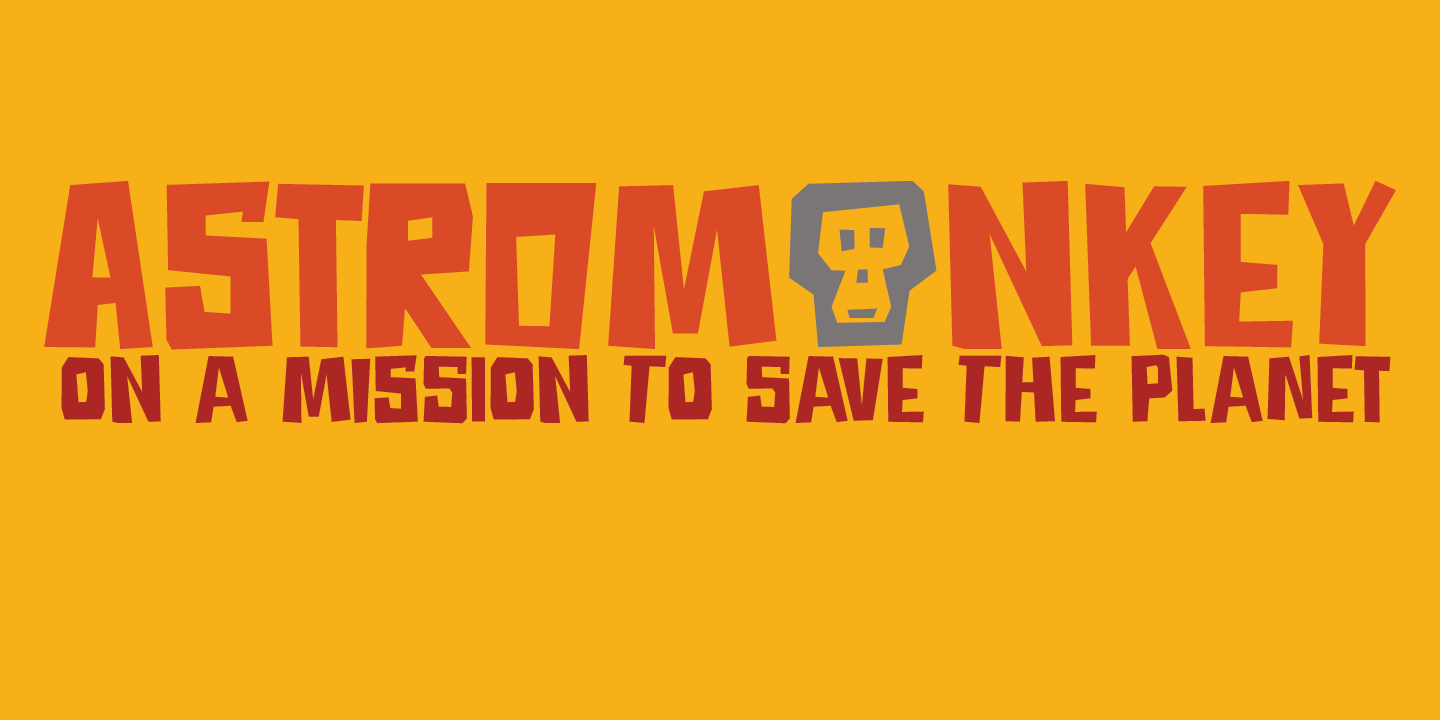
Astromonkey Font is a futuristic and playful typeface that feels straight out of a sci-fi comic or intergalactic arcade. It’s a perfect match for space-themed designs, children’s games, YouTube channel branding, tech toys, science fair posters, or any project that dares to think outside the orbit.
What makes Astromonkey Font Free Download so exciting is its bold, whimsical style that combines retro space aesthetics with cartoonish energy. It’s fun, eye-catching, and adds a cosmic twist to your typography — like a rocket-powered banana thrown at light speed! 🚀🍌
The Astromonkey Font family includes styles such as Regular, Outline, Shadow, and Warp, giving you the tools to create layered, dynamic, and animated text effects. Each variation is built to maintain legibility while delivering personality at full blast.
Whether you're designing a mobile game interface, a sci-fi children’s book cover, or just want to make your headlines pop with extraterrestrial flavor, Astromonkey Font Free Download is your creative launchpad. It’s a font that invites curiosity, creativity, and a little cosmic chaos.